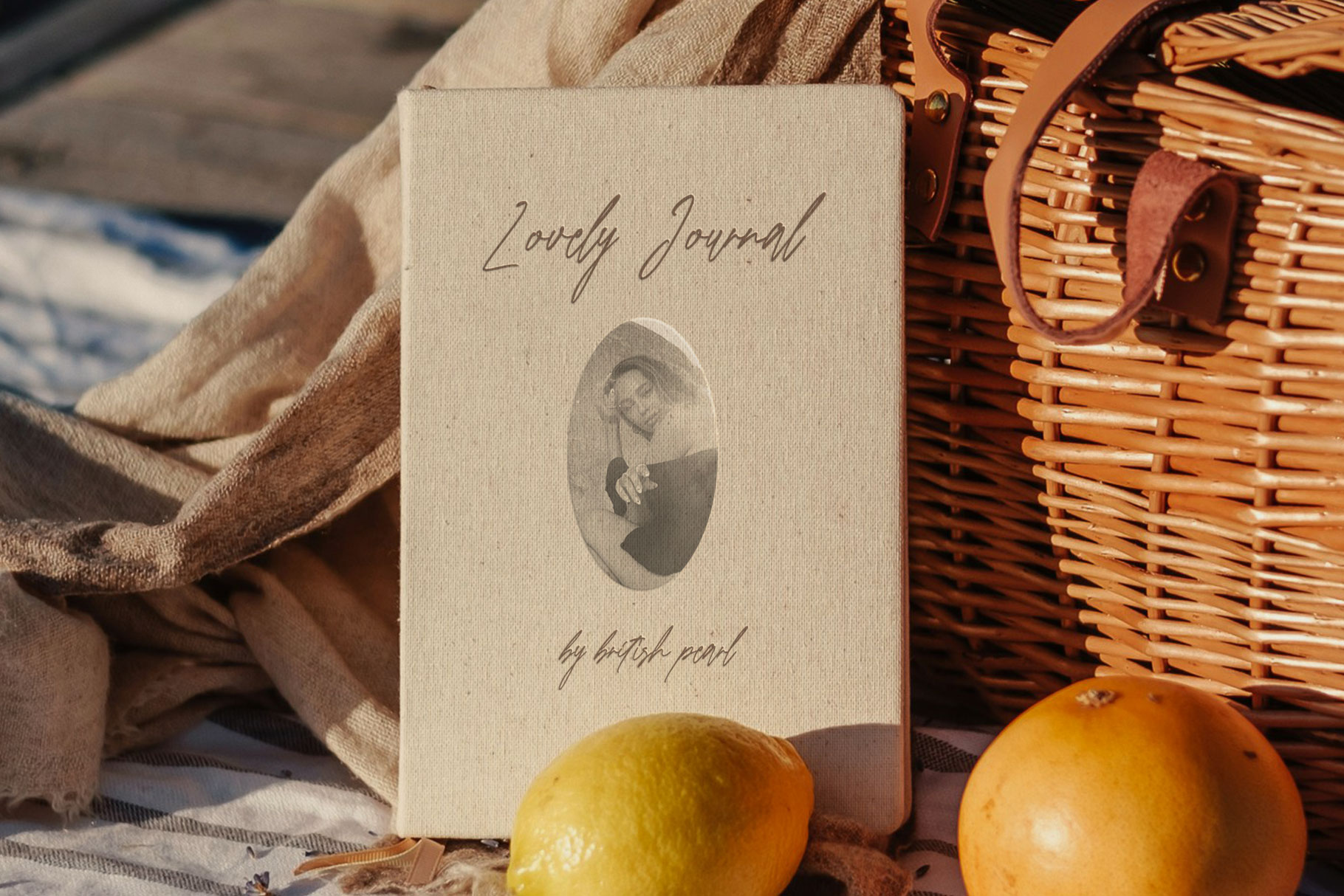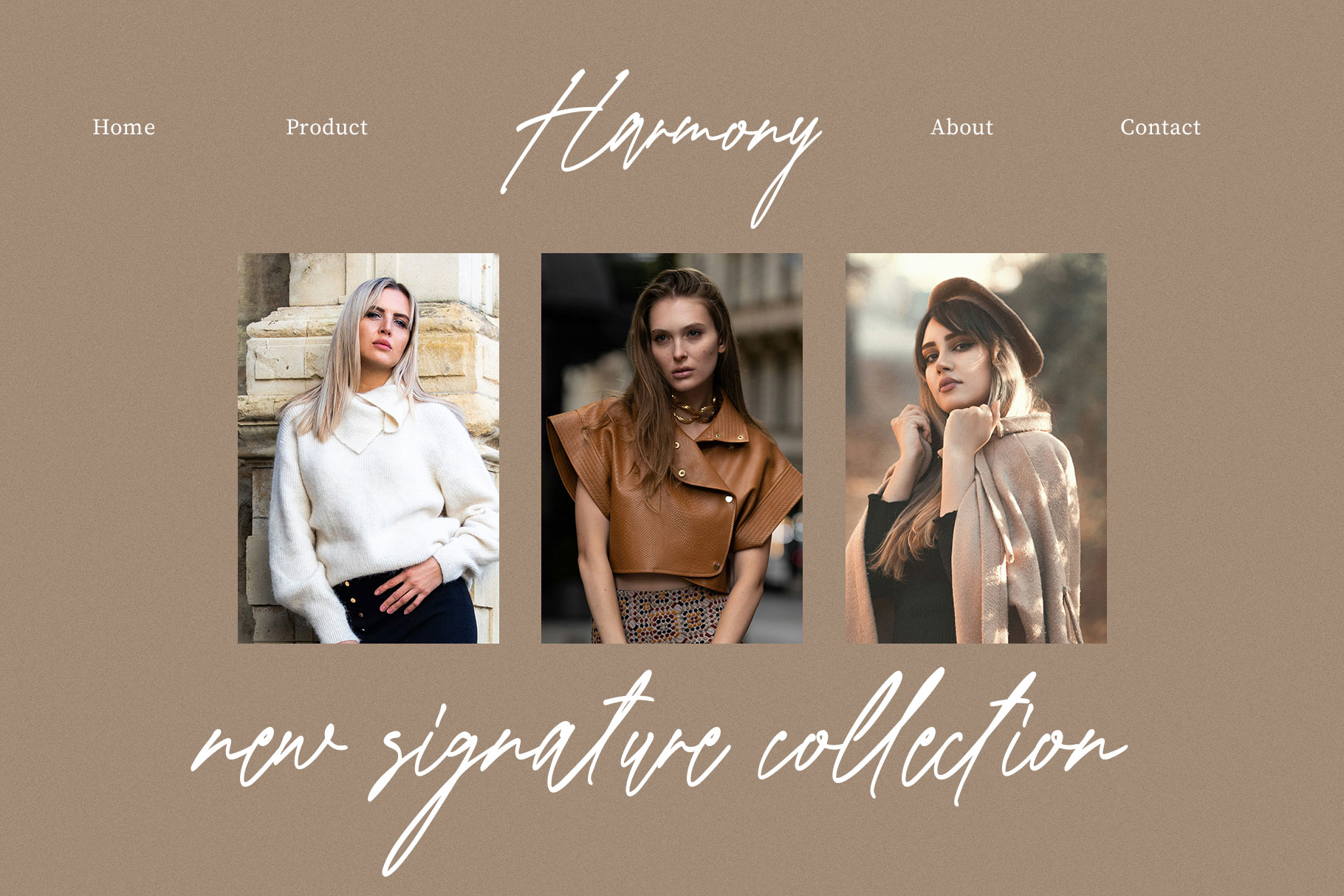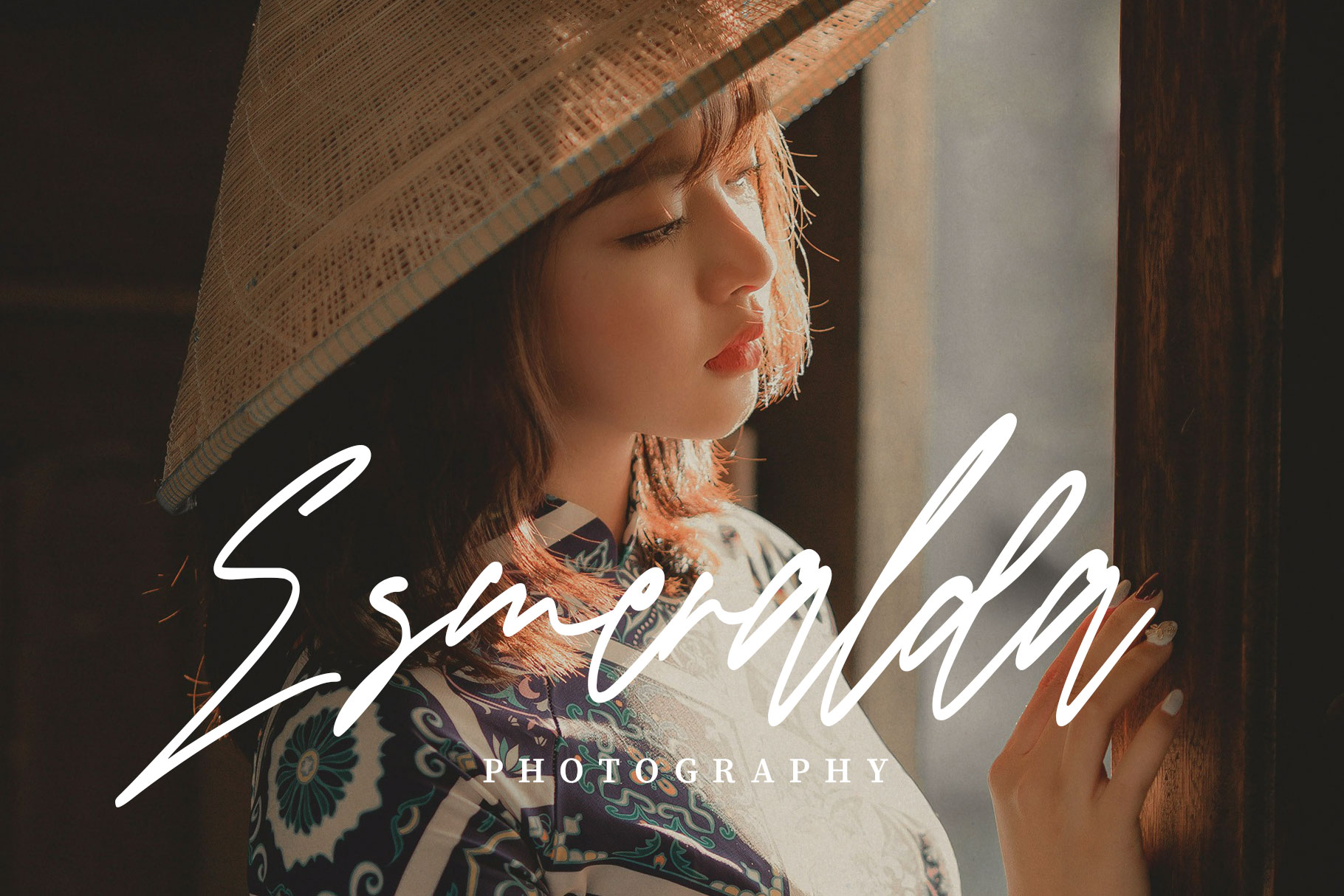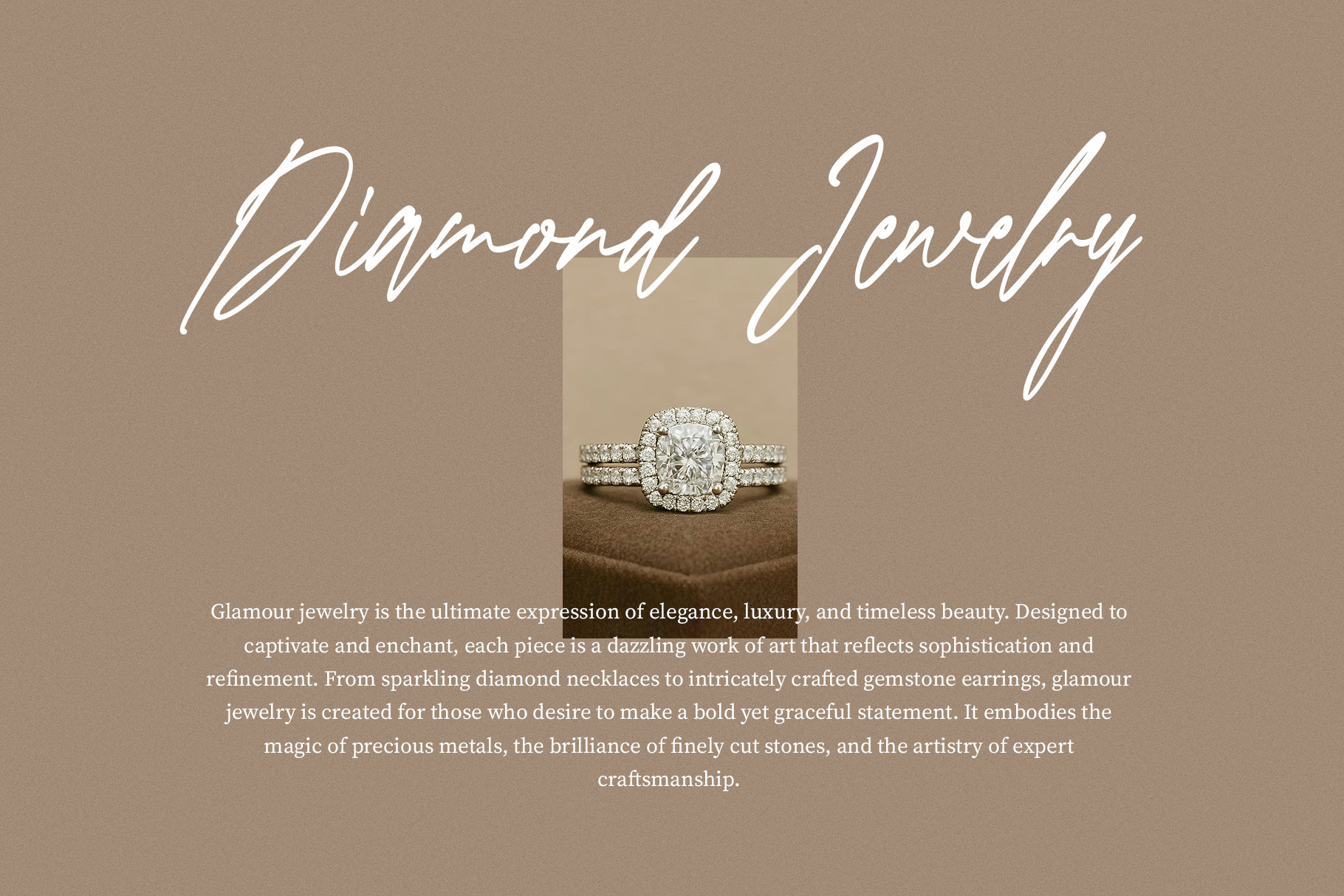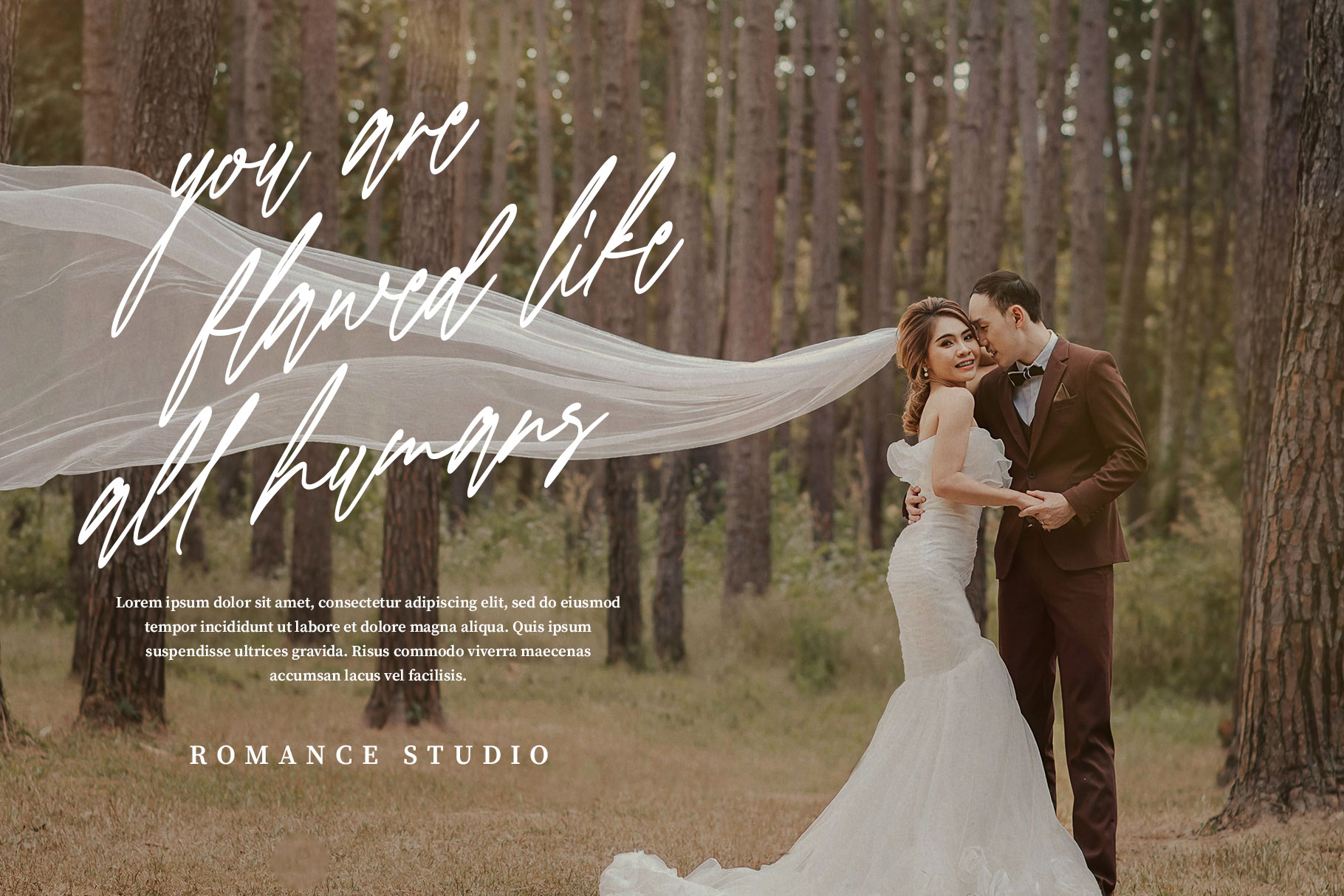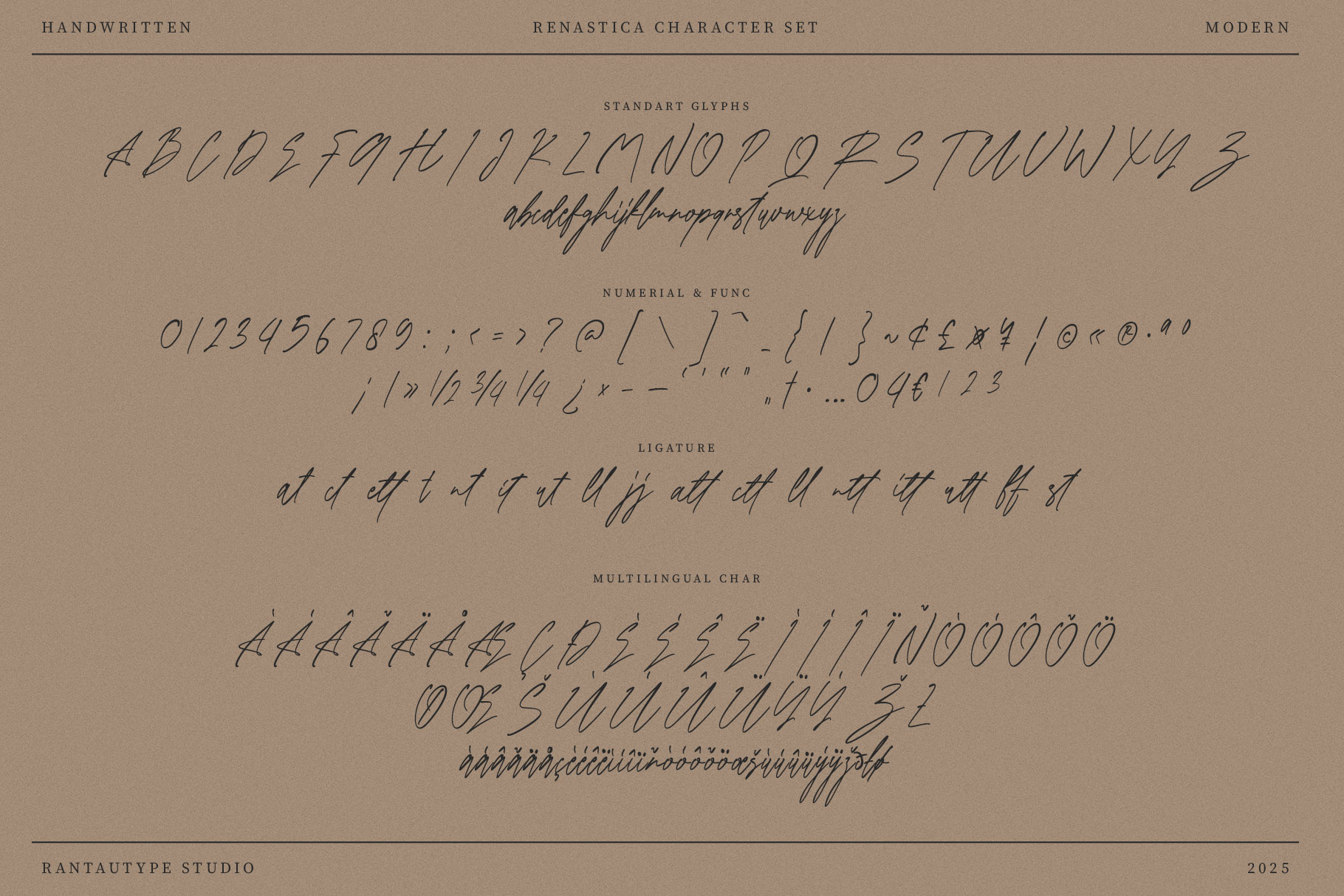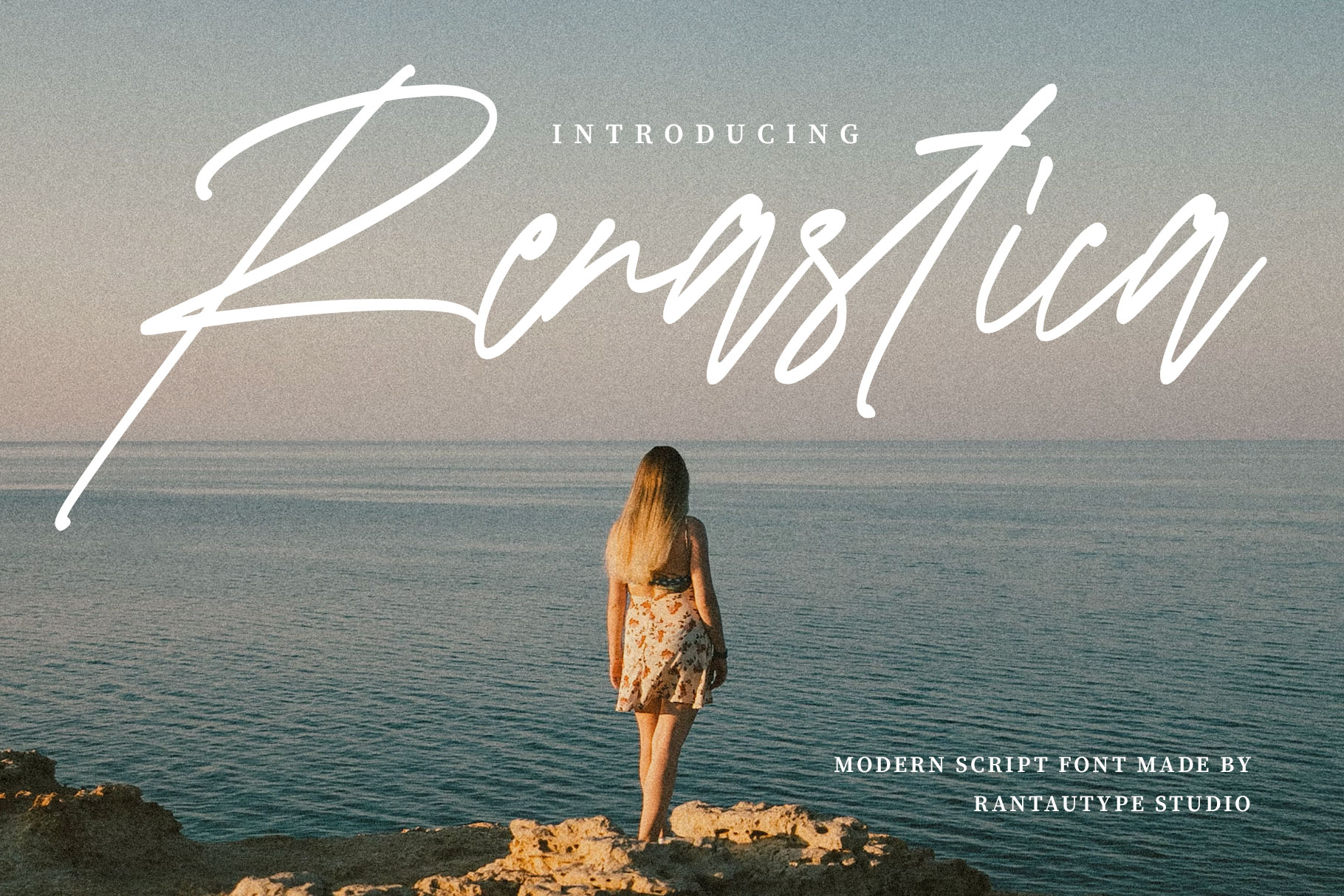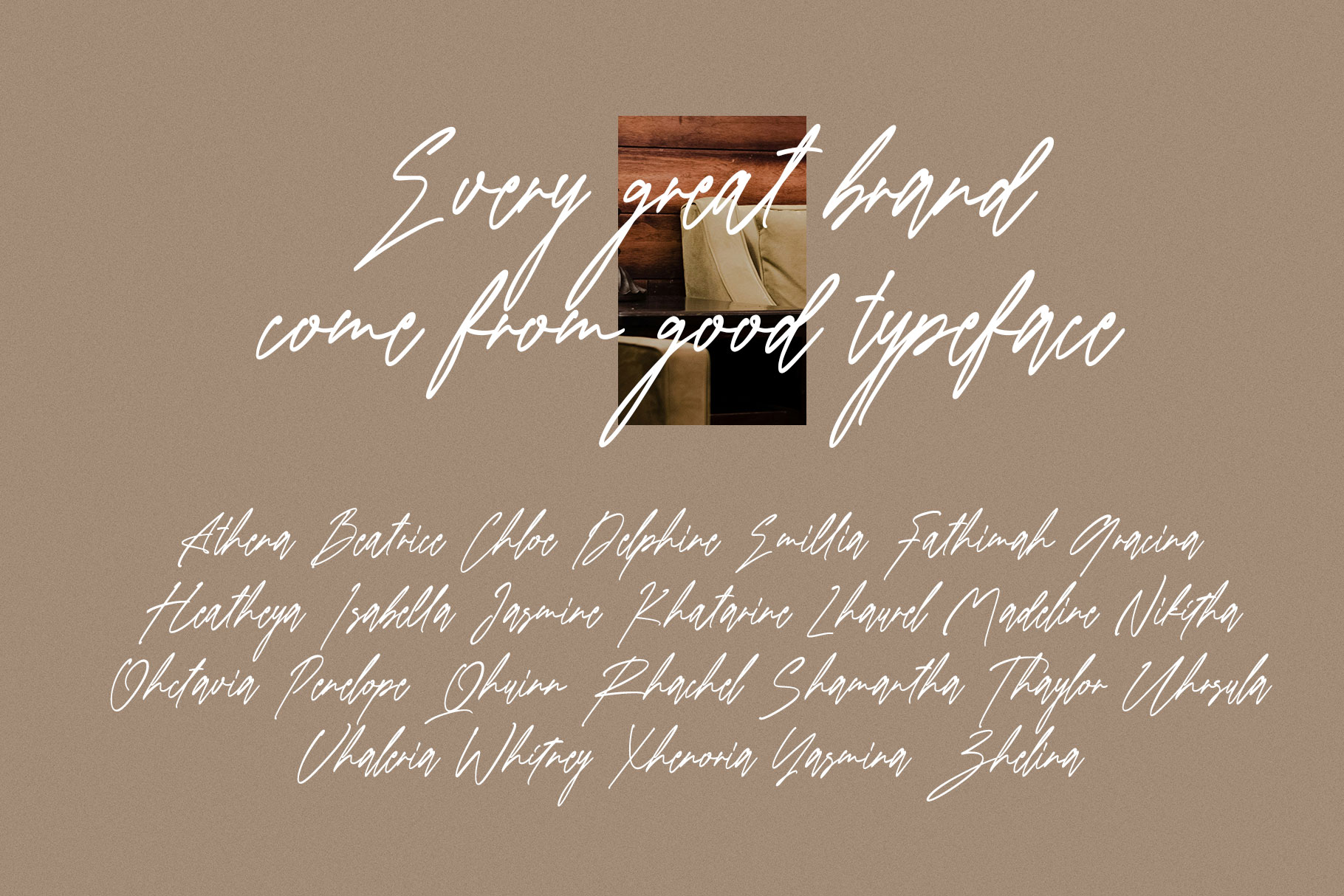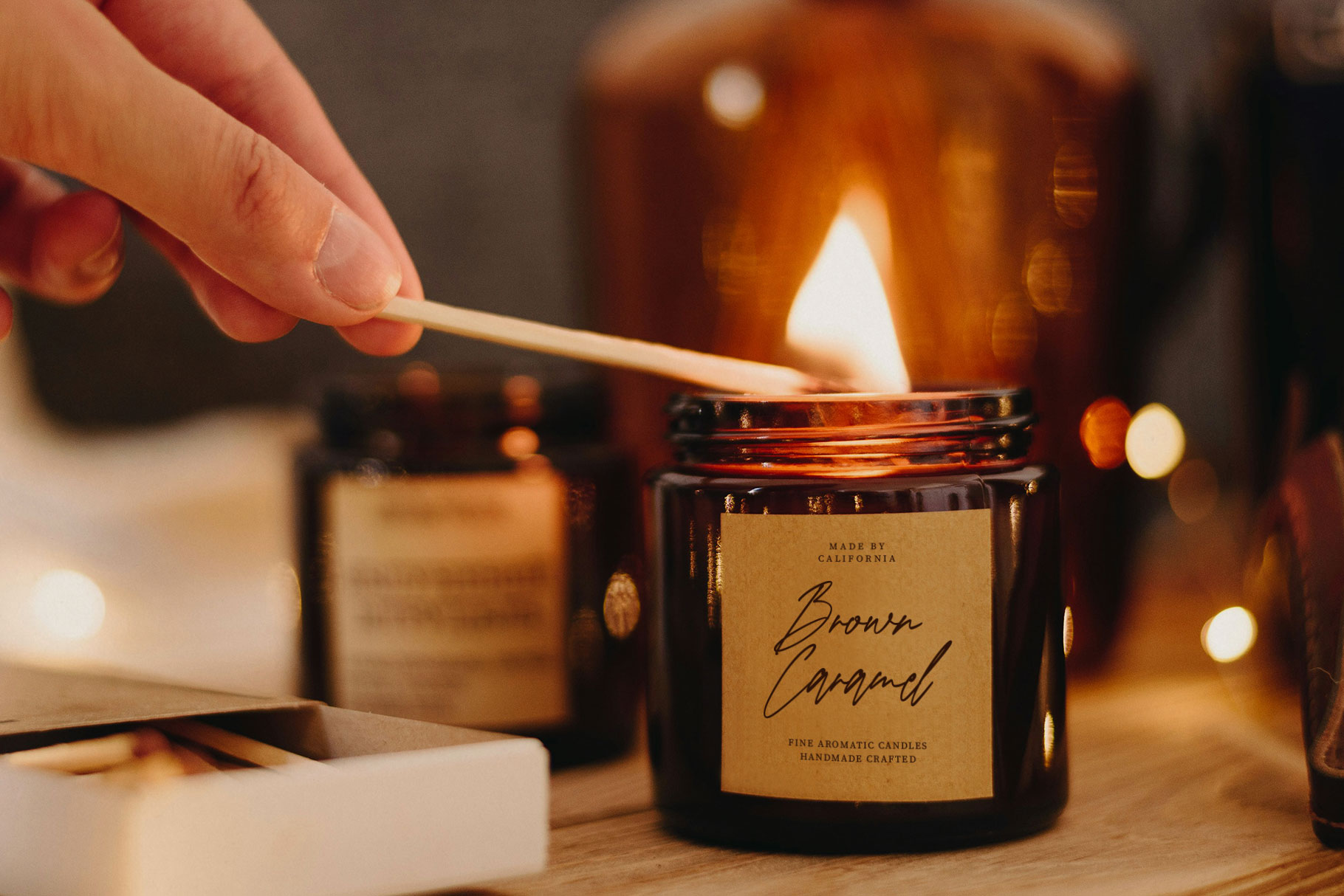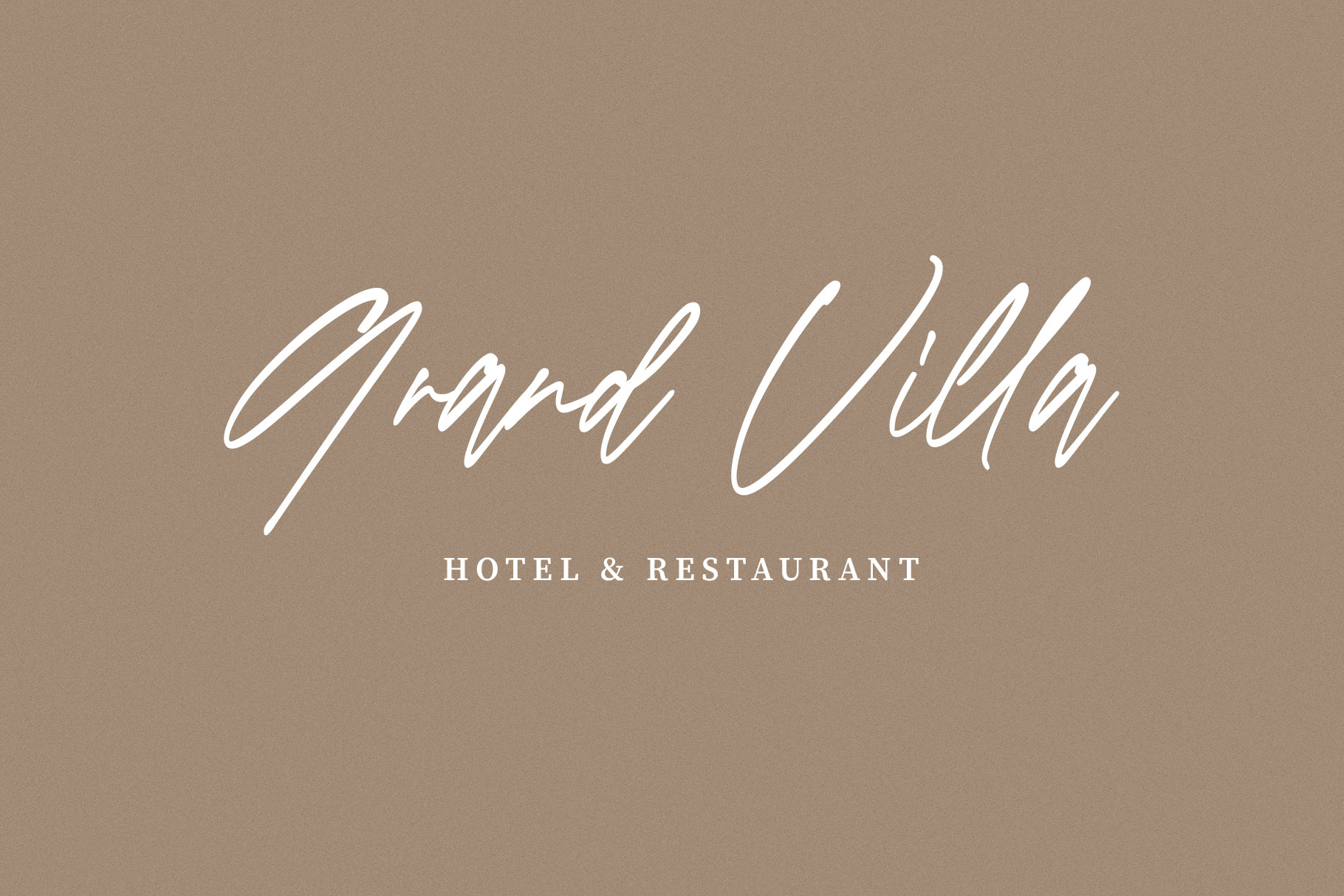
Renastica Modern Script Font
Renastica is modern handwritten font made with love by rantautype studio. Renastica is a perfectly choice for any creative endeavor, creating, modern, lifestyle design such as logotype, title, cover, branding, invitations, wedding designs, display and magazine, social media posts, advertisements, printed quotes, product packaging, corporate brand, product designs, labels, photography, watermarks, special events and any other project with modern touch.